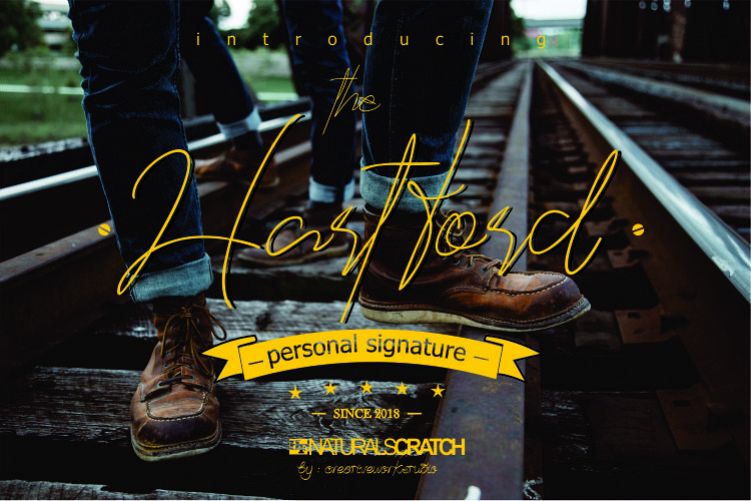
the Hartford
TheHartford
Hartford is a signature style font where you will get hand scratches like the original. This font can be applied for various purposes such as product brands, logos, store boards, invitation cards, embossed letters, web titles, magazine headers, book titles and various product and company promotion needs.